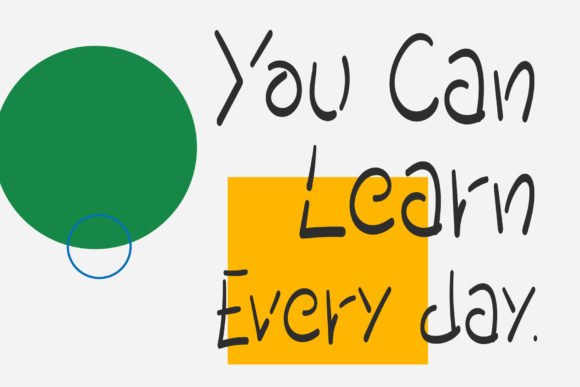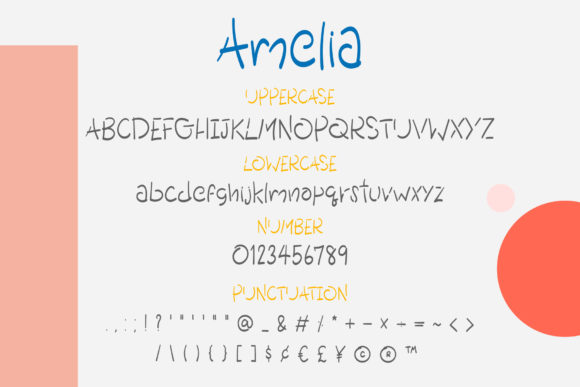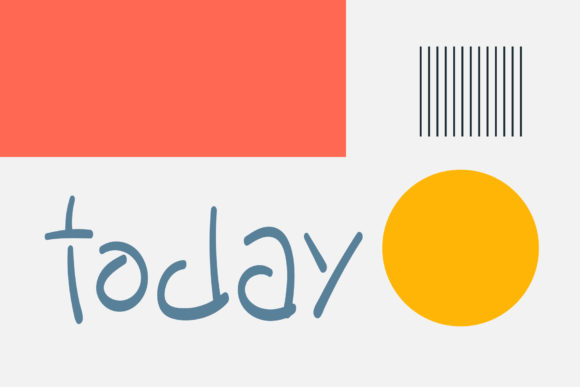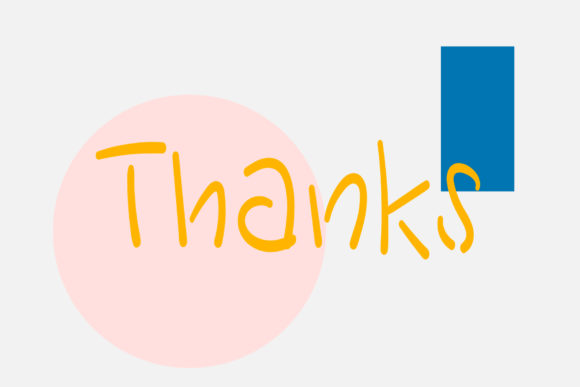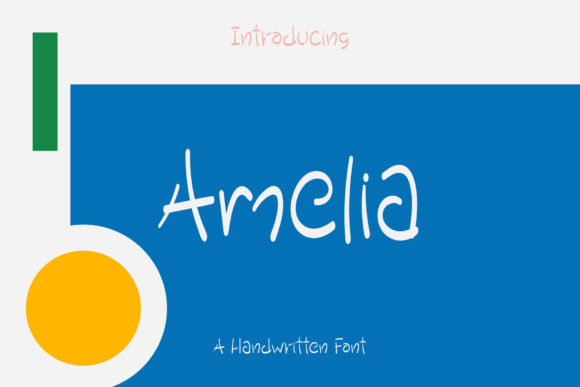
Discover the Charm of Amelia Font: A Sweet and Simple Handwritten Delight
Are you on the hunt for a font that exudes sweetness and simplicity? Look no further than Amelia Font, a gorgeous handwritten font that’s sure to capture your heart. With its incredibly versatile style, Amelia Font is perfect for a wide range of creative projects, from wedding invitations and stationary art to social media posts and more.
The Beauty of Amelia Font
Amelia Font is a beautifully crafted handwritten font that’s designed to add a touch of elegance and sophistication to any design project. Its sweet and simple style makes it perfect for creating gorgeous wedding invitations, save-the-date cards, and other wedding-related stationery. But Amelia Font’s uses don’t stop there – it’s also ideal for creating stunning stationary art, eye-catching social media posts, and even marketing materials like brochures and flyers.
What Makes Amelia Font So Versatile?
So, what makes Amelia Font so versatile? For starters, its handwritten style is both elegant and approachable, making it suitable for a wide range of design projects and themes. Whether you’re creating a formal wedding invitation or a fun social media post, Amelia Font is sure to add a touch of personality and charm to your design. Additionally, Amelia Font comes in a range of formats, making it easy to use in different design applications, from Adobe Illustrator and Photoshop to Microsoft Word and Canva.
Using Amelia Font for Wedding Invitations and Stationary
Amelia Font is a dream come true for wedding planners and stationery designers. Its sweet and simple style makes it perfect for creating beautiful wedding invitations, save-the-date cards, and other wedding-related stationery. Here are a few ideas for using Amelia Font in your wedding stationery designs:
- Create gorgeous wedding invitations that set the tone for the big day
- Design beautiful save-the-date cards that will get your guests excited
- Make stunning wedding programs that showcase the ceremony and reception details
- Design elegant place cards and table runners that add a touch of sophistication to the wedding decor
Using Amelia Font for Social Media and Marketing Materials
Amelia Font is also perfect for creating eye-catching social media posts and marketing materials. Its handwritten style adds a touch of personality and charm to any design, making it perfect for brands that want to stand out from the crowd. Here are a few ideas for using Amelia Font in your social media and marketing designs:
- Create stunning social media posts that grab attention and drive engagement
- Design beautiful brochures and flyers that showcase your products or services
- Make elegant business cards that add a touch of sophistication to your professional brand
- Design gorgeous email newsletters that keep your subscribers engaged
Tips for Using Amelia Font in Your Designs
Here are a few tips for using Amelia Font in your designs:
- Experiment with different font sizes and styles to add visual interest to your design
- Pair Amelia Font with other fonts to create a unique and eye-catching combination
- Use Amelia Font to add a touch of personality and charm to your design
- Don’t be afraid to get creative and try new things – Amelia Font is a versatile font that’s perfect for experimenting with different design styles
Amelia Font is a sweet and simple handwritten font that’s perfect for designers and crafters who want to add a touch of elegance and sophistication to their design projects. With its incredibly versatile style, Amelia Font is suitable for a wide range of creative projects, from wedding invitations and stationary art to social media posts and marketing materials. Whether you’re a professional designer or a DIY crafter, Amelia Font is sure to become a favorite in your design arsenal.